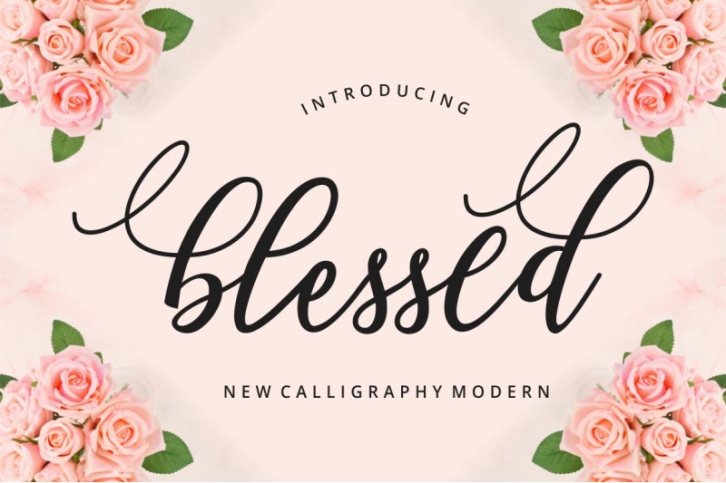
INTRODUCING Blessed Script
Blessed Script is a modern calligraphy font. Blessed a beautiful for logotype, website header, fashion design,wedding card design and any more.Blessed comes with elegant style, It also comes as a Blessed font, It contains a full set of lower & uppercase letters, a large range of punctuation, numerals, and multilingual support.